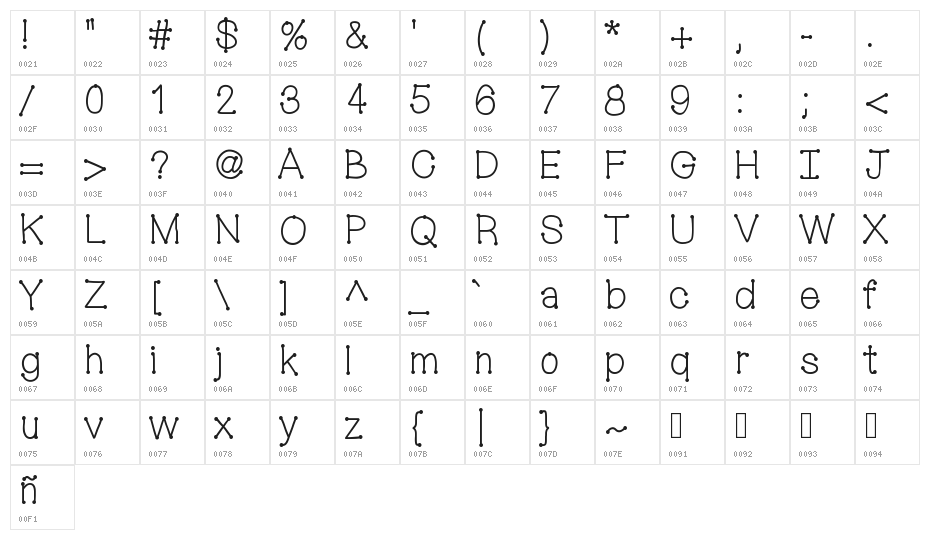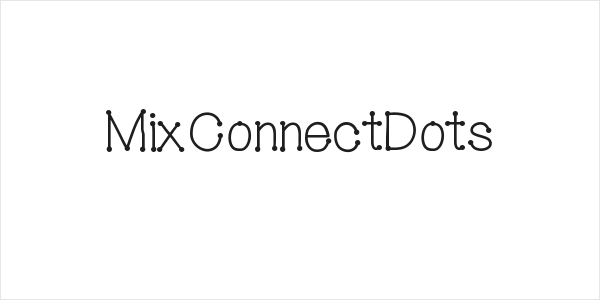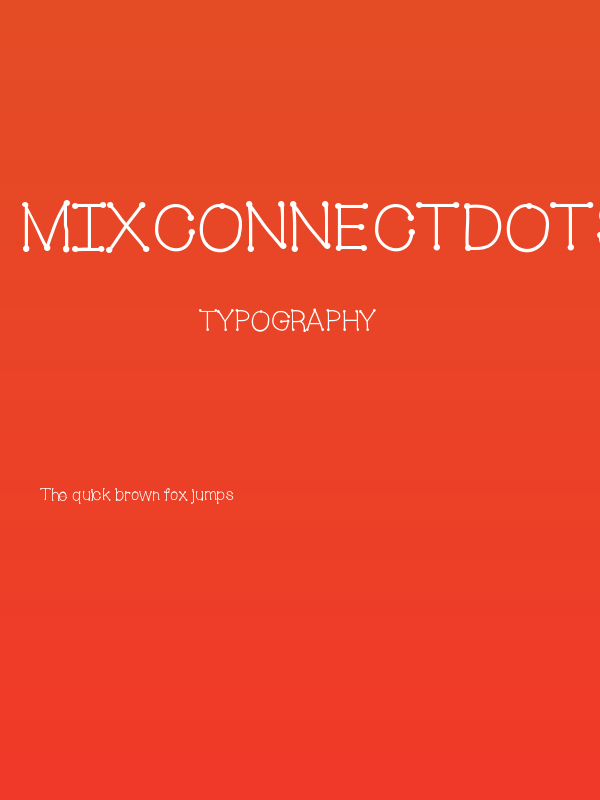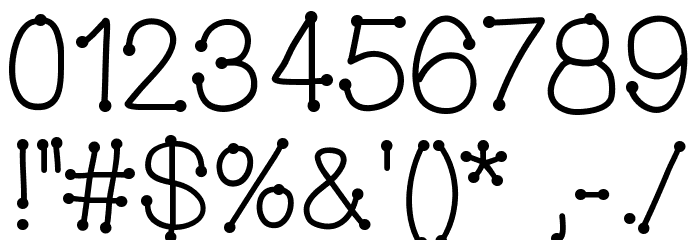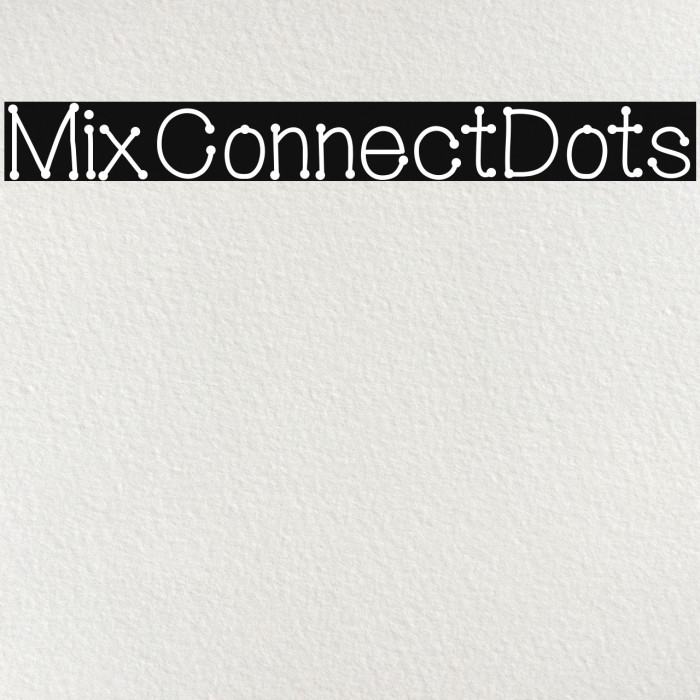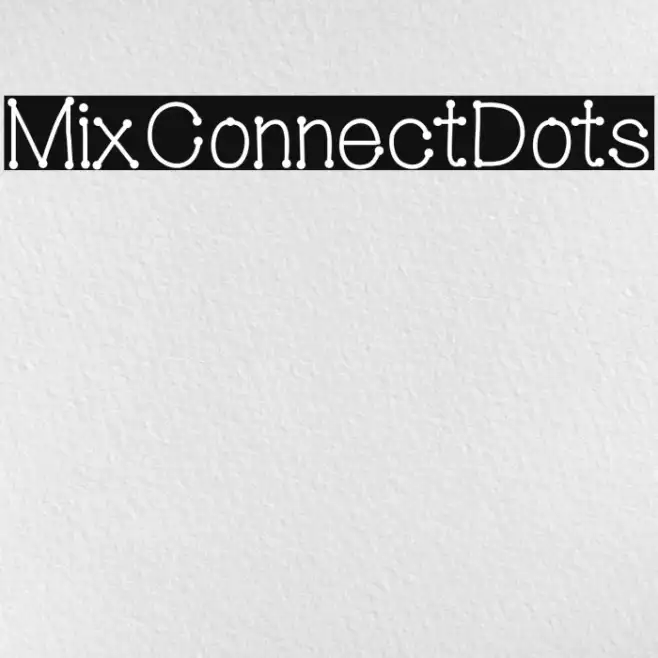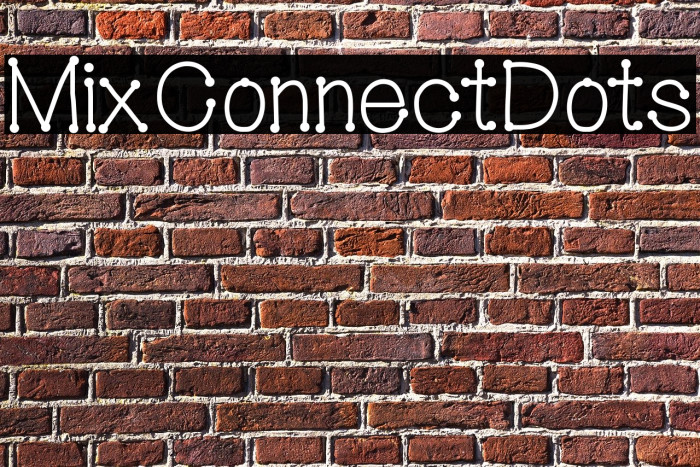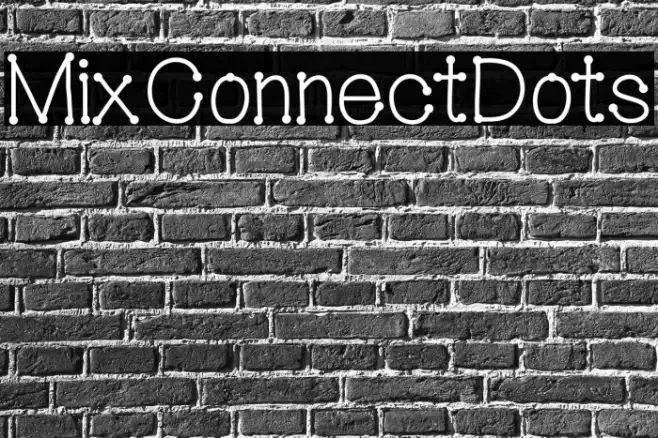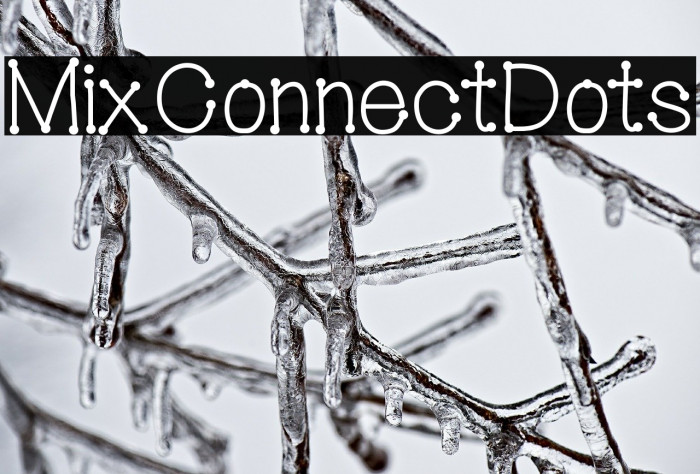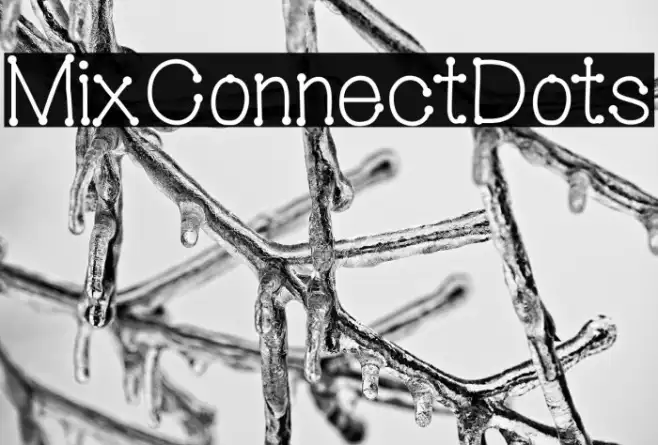
MixConnectDots Font
MixConnectDots Description
This playful and whimsical font features a unique design where each character is connected by dots, reminiscent of a connect-the-dots puzzle. The uppercase and lowercase letters maintain a consistent, rounded style with evenly spaced dots that form the structure of each letter. Numbers and special characters follow the same dotted pattern, creating a cohesive and visually engaging typeface. The font's design is both modern and fun, making it ideal for creative projects that require a touch of personality and charm. Its legibility is maintained despite the decorative elements, ensuring it can be used effectively in various contexts.
| Overall Style | Playful, Modern |
| Proposed Projects | Ideal for children's books, educational materials, playful branding, and creative posters. |